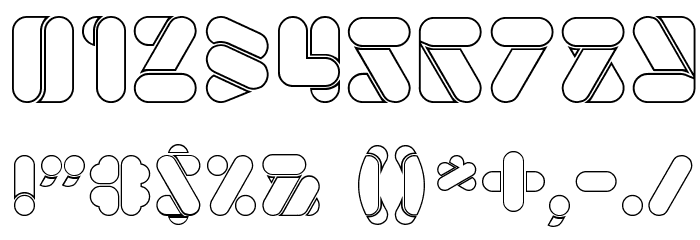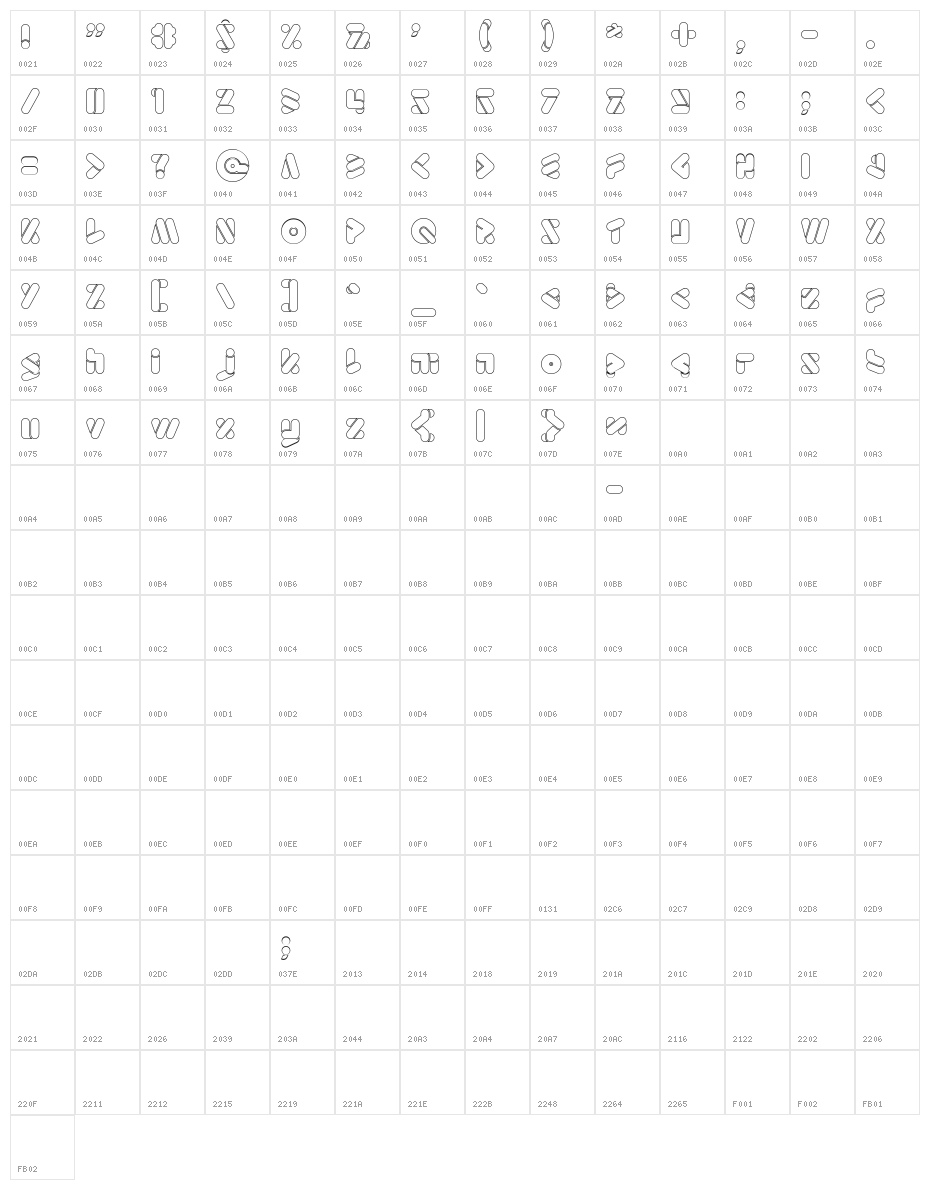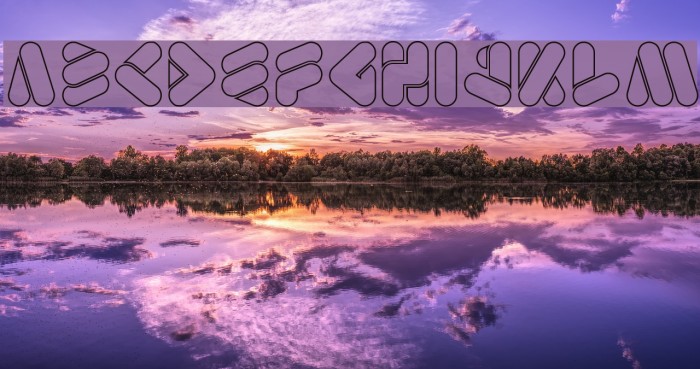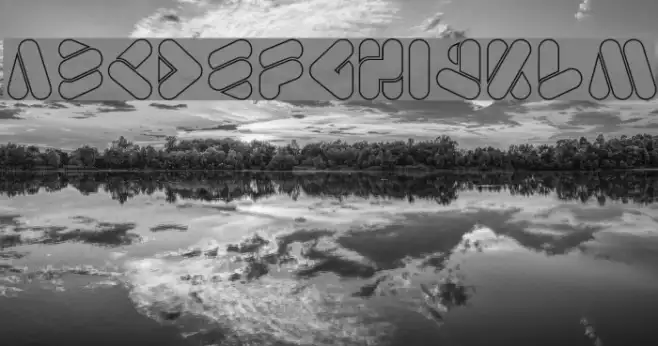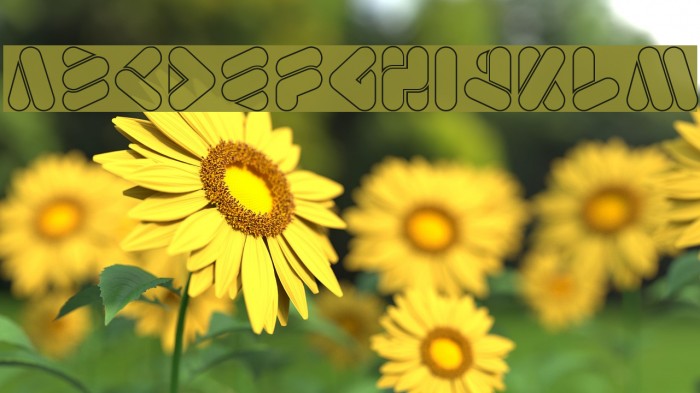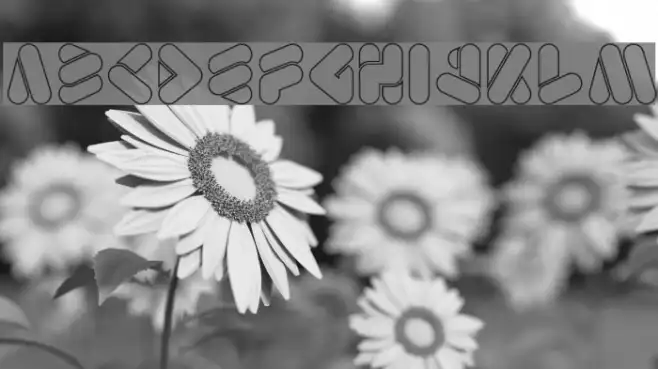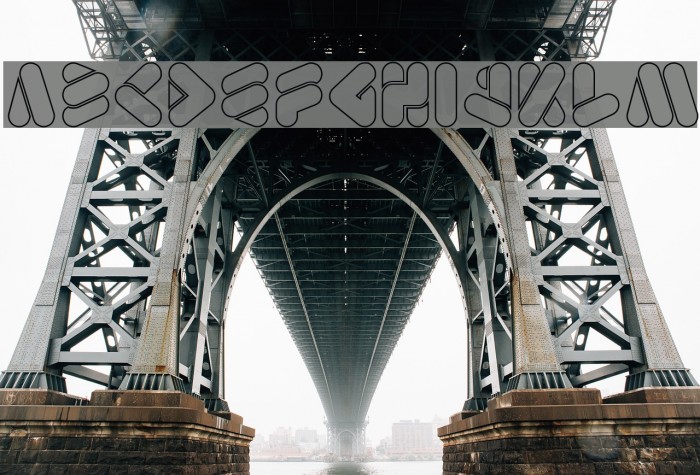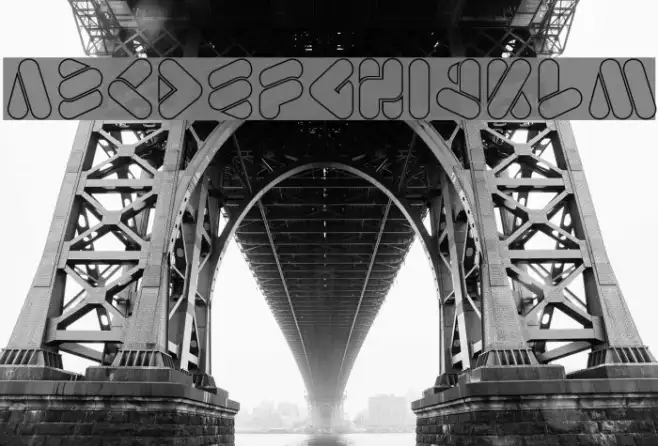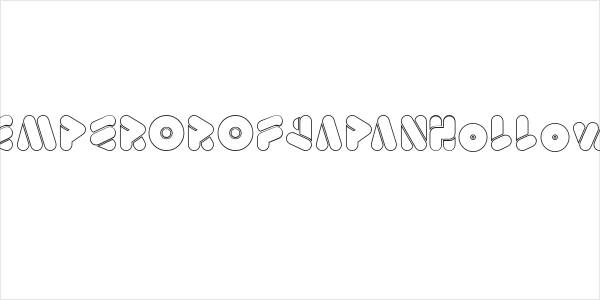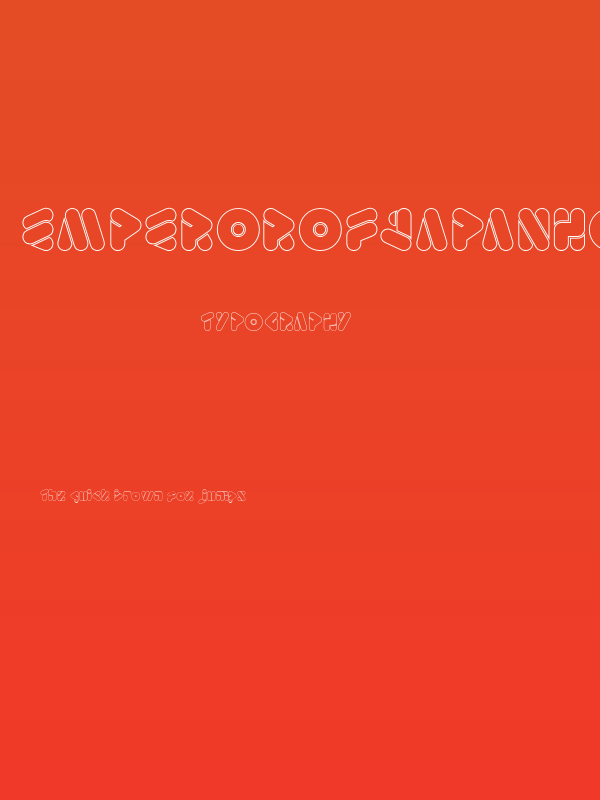
EMPEROROFJAPANHollow Font
EMPEROROFJAPANHollow Description
This font features a unique hollow design with bold, rounded shapes that create a futuristic and playful aesthetic. Each character is outlined, giving it a three-dimensional appearance. The letters are constructed with thick lines that form geometric shapes, resulting in a cohesive and visually striking typeface. The uppercase and lowercase letters maintain a consistent style, while the numbers and special characters complement the overall design. This font's distinct appearance makes it ideal for creative projects that require a modern and eye-catching look.
| Proposed Projects | Ideal for branding, posters, album covers, and digital artwork that require a modern and playful touch. |